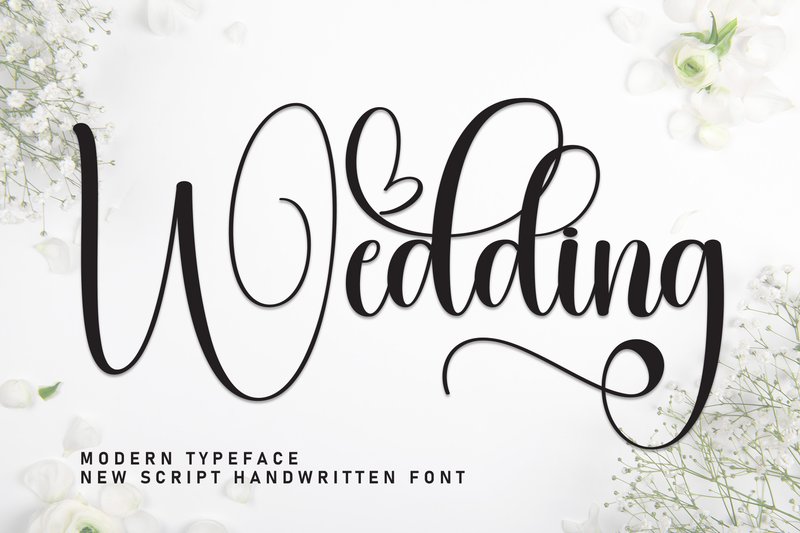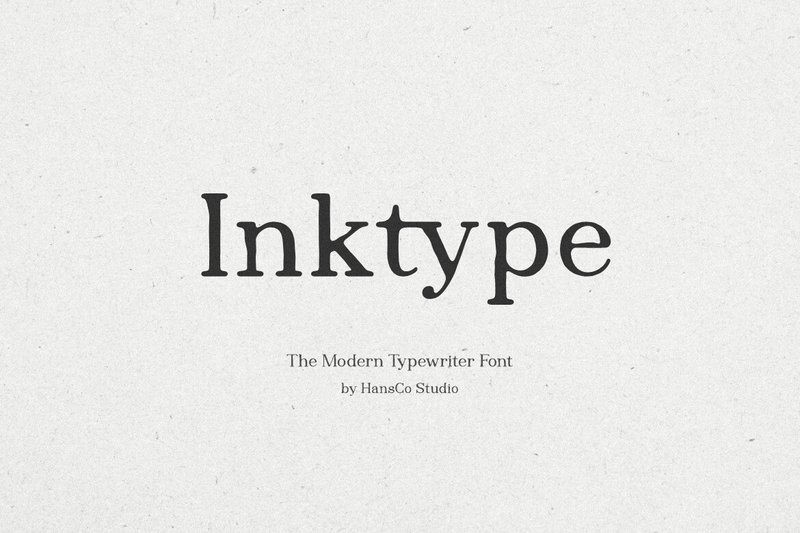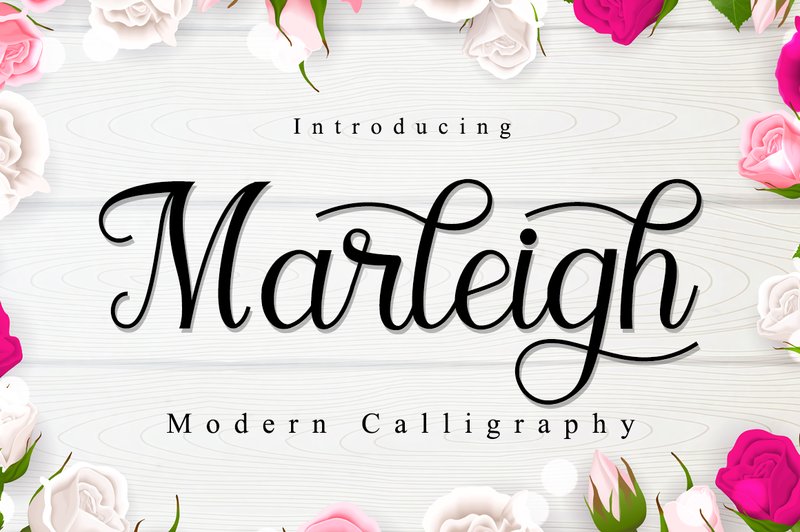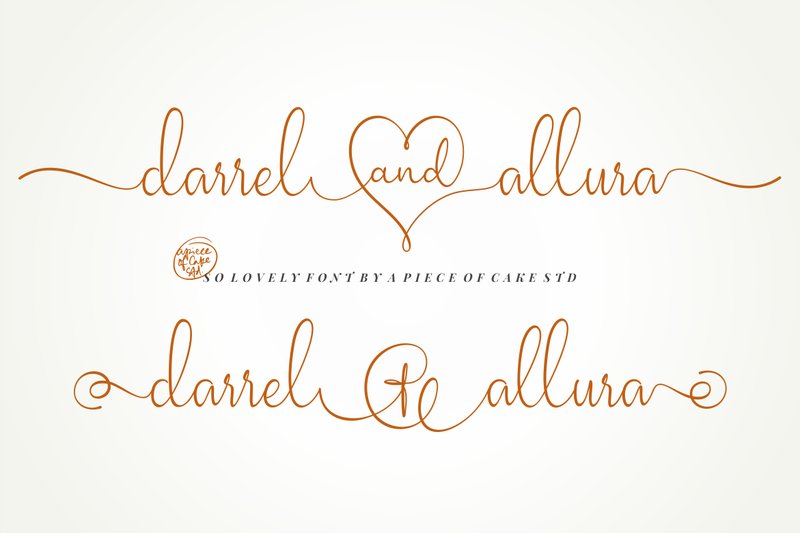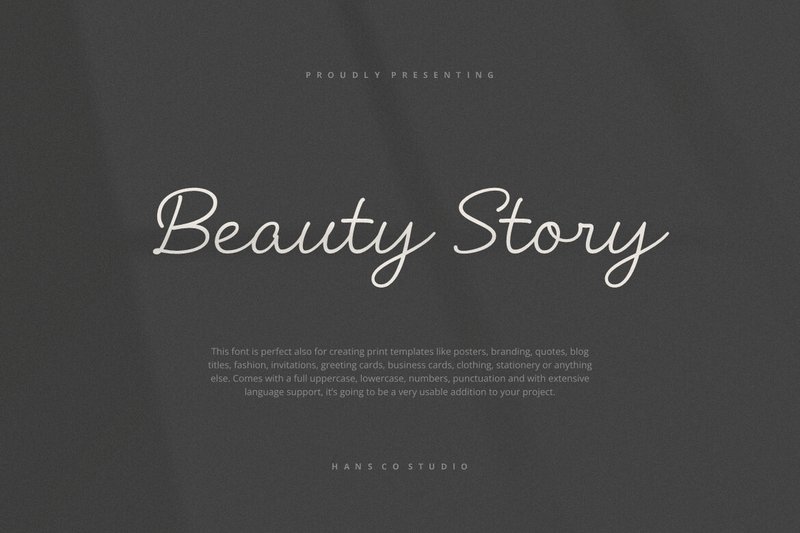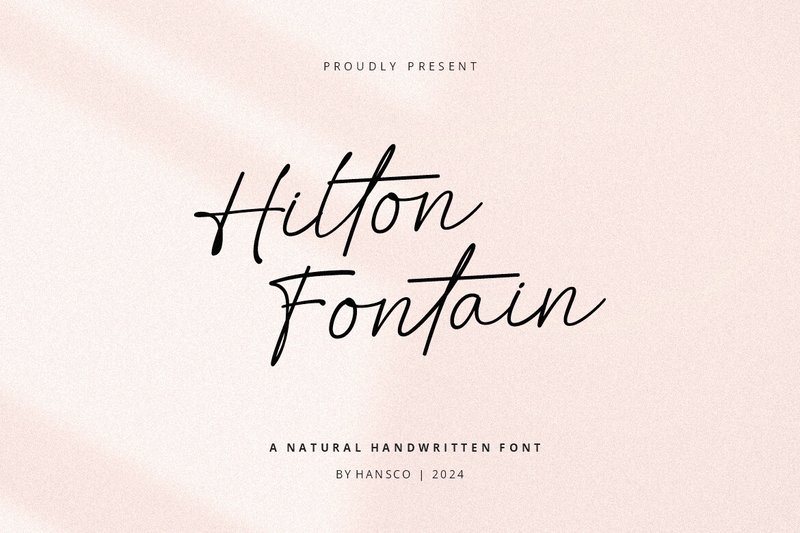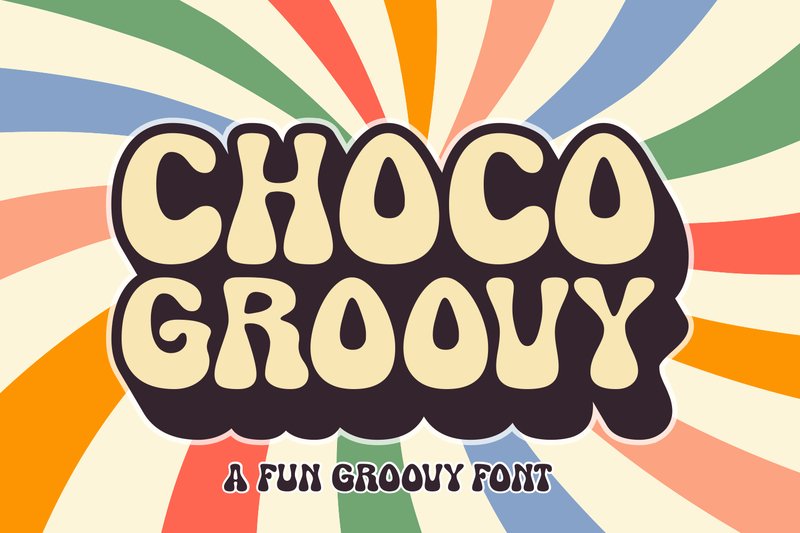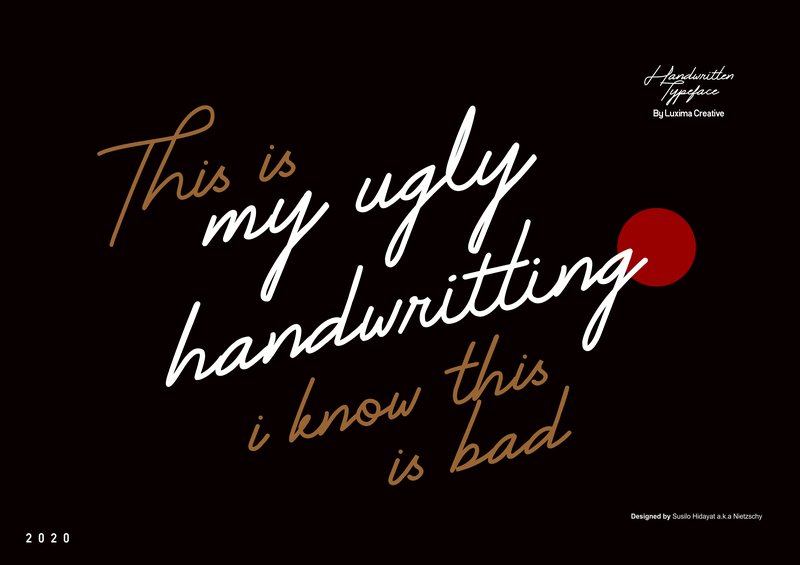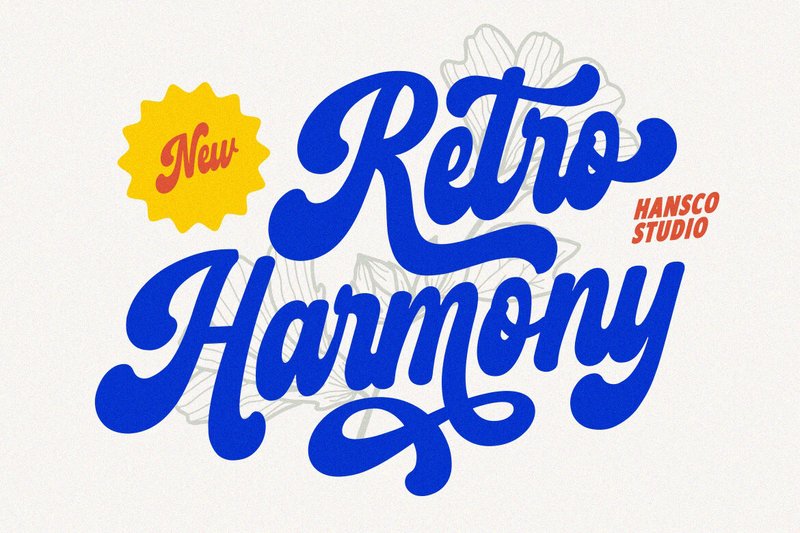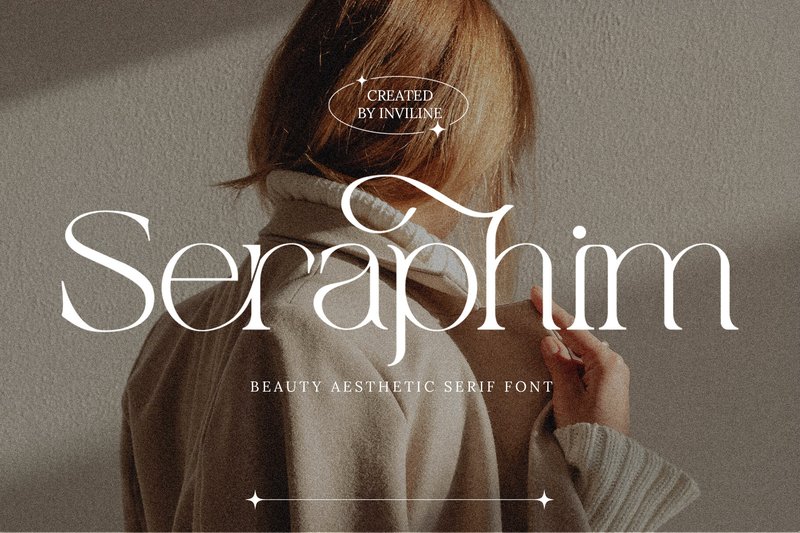
Industry analysts predict that by 2026, typographic-led video content will outperform static images by over 60% on engagement metrics. As Instagram’s algorithm increasingly prioritizes retention on Reels and Stories, generic fonts are becoming invisible. This cultural shift demands typography that not only looks good but performs under pressure—capturing attention in milliseconds. We’ve meticulously curated this collection of 28 fonts, chosen specifically for their on-screen legibility and emotional resonance in fast-paced video. This isn’t just a list; it’s a strategic toolkit to enhance your content’s authority and save you hours of design guesswork.
1. Wedding (by andikastudio)
Wedding (by andikastudio) If you are looking for a font that effortlessly blends romance with modern trends, your search ends here. This magical script font is a masterclass in elegance, featuring delicate, flowing letterforms that feel both personal and luxurious. Its handwritten quality makes it a standout choice for designers aiming to add a sophisticated, artistic touch to their work, transforming any simple idea into a polished and memorable piece.
- An elegant script with a smooth, connected flow.
- Delicate letterforms that mimic fine calligraphy.
- A sophisticated and romantic character set.
- Wedding invitations, save-the-dates, and event signage.
- Trending social media graphics, quote overlays, and Reel titles.
- Luxury branding, logos, and high-end packaging.
- Personalized DIY projects and handcrafted product labels.
2. Inktype (by HansCo)
Inktype (by HansCo) moves past the cold, impersonal serifs of digital design. This font introduces a warm, organic character that feels both personal and effortlessly polished. Its charming hand-drawn quality gives every letter a subtle, unique form, blending the timeless elegance of vintage typography with a fresh, approachable sensibility. It’s the kind of font that doesn’t just display words—it infuses them with a friendly, artistic personality, making your designs feel authentic, stylish, and thoughtfully crafted.
- A hand-drawn serif style that provides an authentic, organic feel.
- A complete character set including full uppercase, lowercase, numbers, and punctuation.
- Classic vintage structure updated with clean, modern details for readability.
- Extensive language support, making it a versatile choice for global projects.
- Creating engaging social media content like quotes, story highlights, and viral Reels.
- Developing approachable brand identities for boutiques, cafes, and creative studios.
- Designing charming print materials such as invitations, greeting cards, and product packaging.
- Adding a stylish, personal touch to blog titles, headlines, and digital lookbooks.
3. Marleigh (by Manjalistudio)
Marleigh (by Manjalistudio) is effortlessly charming, bringing the warmth of a handwritten note to your digital canvas. This casual script font has a friendly and approachable feel, defined by its smooth, loopy letterforms that connect with an organic flow. The true magic lies in its gorgeous swashes and smart ligatures, which allow you to effortlessly elevate simple text into a bespoke piece of typographic art. Marleigh is the perfect blend of playful and polished, designed to make any project feel personal, authentic, and genuinely inviting.
- A casual, handwritten script with a clean and friendly aesthetic.
- Includes a beautiful set of stylistic alternates, swashes, and ligatures for creative versatility.
- Smooth, legible letterforms perfect for both display and short-form text.
- Crafted to feel authentic and personal across all applications.
- Creating engaging and viral-worthy text for Instagram Reels and Stories.
- Designing logos, branding, and packaging for artisanal or lifestyle brands.
- Personalized stationery, wedding invitations, and DIY craft projects.
- Eye-catching quote graphics and social media templates that need a human touch.
4. Darrel Allura (by a piece of cake)
Darrel Allura (by a piece of cake) is like a handwritten love note discovered in an old book—it feels both timelessly romantic and intimately personal. This magical script font dances across the page with a delicate, flowing grace that transforms simple words into heartfelt statements. Its elegant strokes and organic curves make it a go-to for designers aiming to infuse their work with a touch of sophisticated, handcrafted charm, turning any trending social media post or personal project into a genuine work of art.
- Elegant, flowing letterforms with a natural handwritten rhythm.
- A complete character set including uppercase, lowercase, numerals, and punctuation.
- Smooth, clean lines perfect for both digital screens and high-quality print.
- Subtle calligraphic details that add a touch of handcrafted authenticity.
- Viral Reels titles, Instagram quotes, and aspirational social media graphics.
- Wedding invitations, save-the-dates, and romantic event stationery.
- Boutique branding, signature logos, and high-end product packaging.
- DIY projects, heartfelt quotes, and personalized creative endeavors.